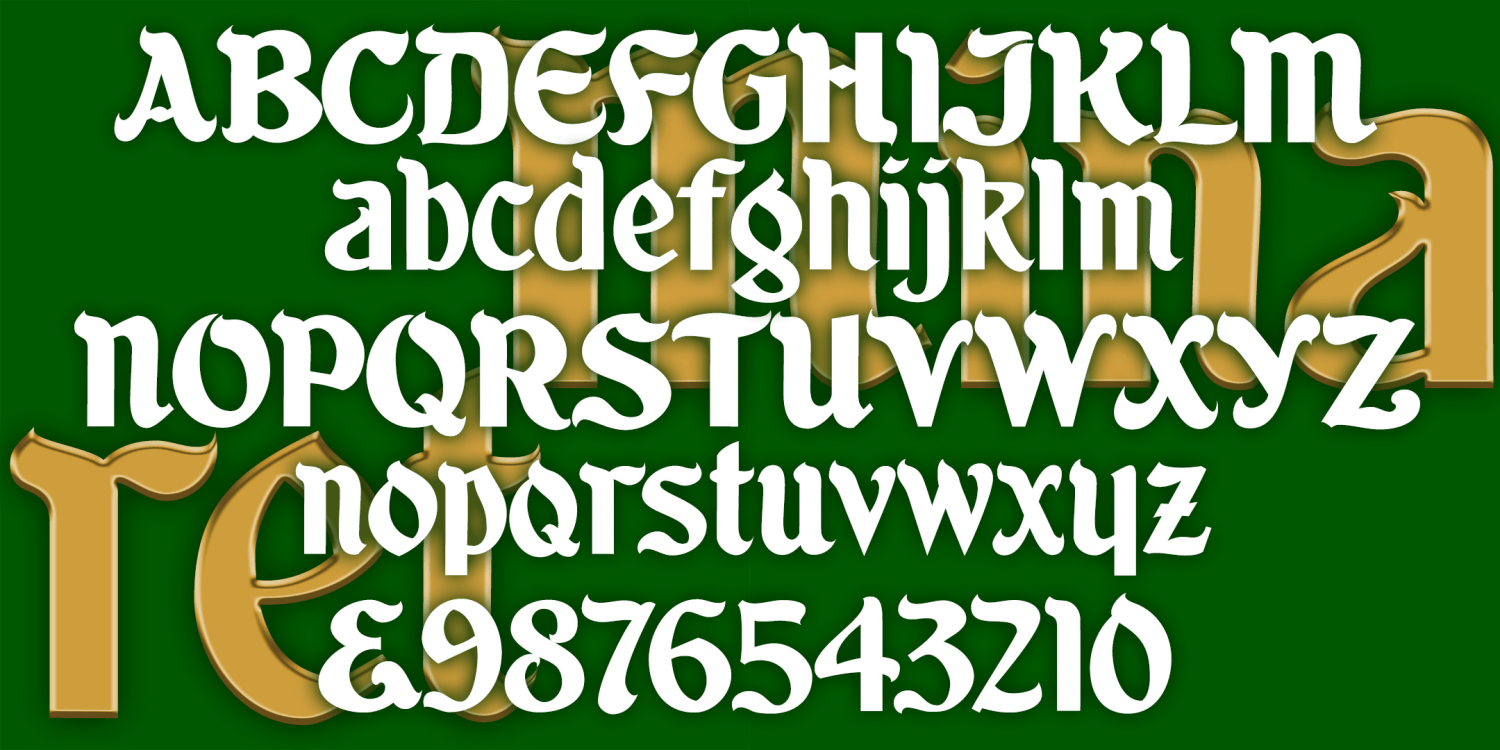
About Minaret
Minaret is a bold display font with a somewhat exotic feel. Instead of mimicking foreign text, Minaret's swirled tops suggest the rooftops of far-off lands. Or maybe it looks like whipped cream and icing! Minaret was inspired by examples of hand-lettering…